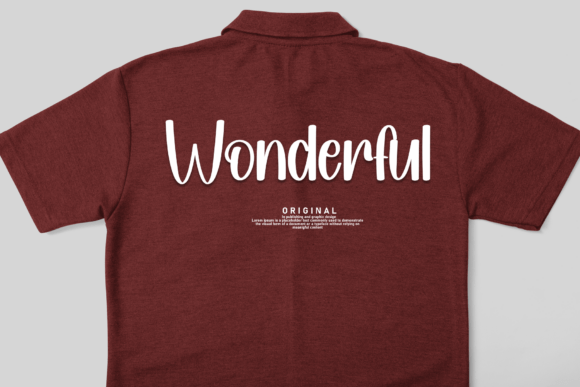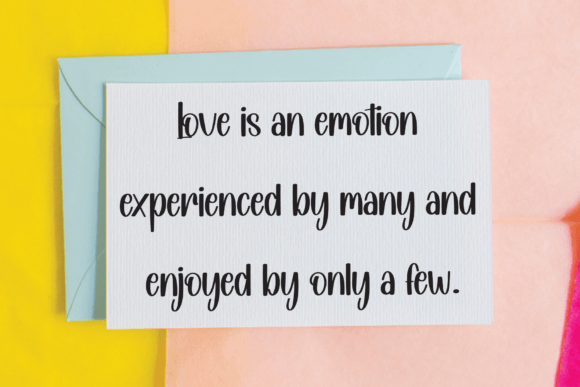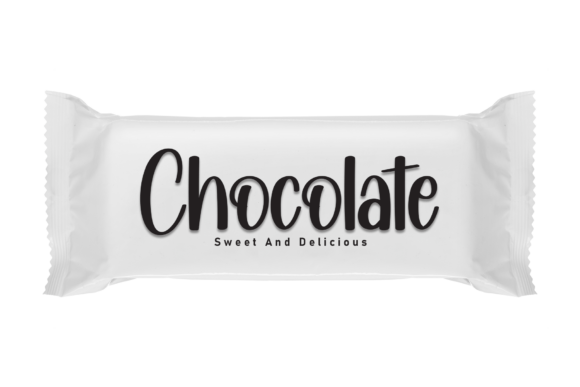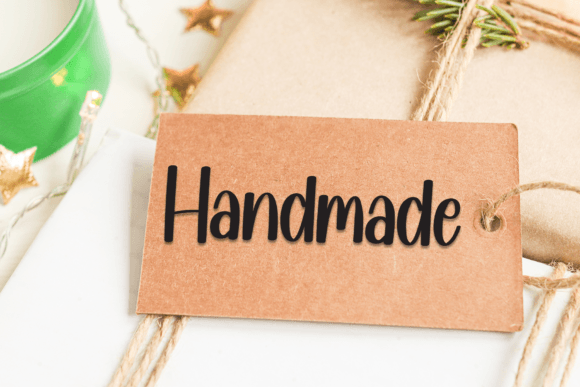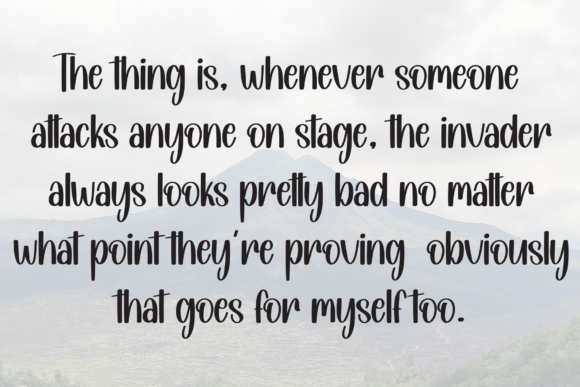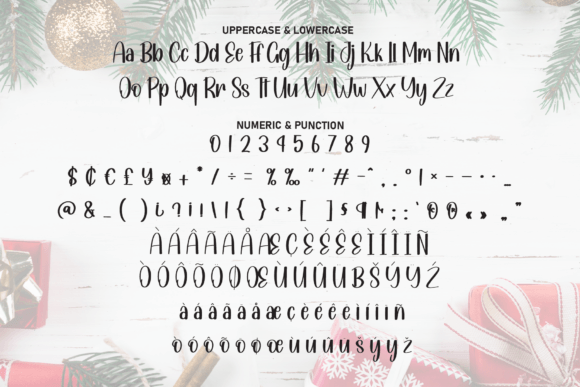
Introduction to Saturday Christmas Font
As designers, we’ve all been there – staring at a blank canvas, trying to bring our ideas to life. The spark of creativity hits, and suddenly, visions of colorful patterns and whimsical typography dance in our minds. For many, this moment is the catalyst for creating something truly special. And that’s exactly what the Saturday Christmas Font is all about – capturing the essence of joy and playfulness in every design.
With its hand-drawn charm and transparent background, this high-quality font is a design resource like no other. Whether you’re working on a creative project that requires a touch of whimsy or simply want to add a personal touch to your designs, the Saturday Christmas Font is the perfect choice. Its free download has made it a favorite among designers, who appreciate its versatility and ease of use.
Key Features of Saturday Christmas Font
- Unique and festive design for creative projects, perfect for a Saturday Christmas celebration.
- High-quality font with transparent background, ideal for digital design and print materials.
- Font size: 2048 glyphs, covering a wide range of languages and characters.
- Perfect for use in holiday-themed designs, greeting cards, and other festive projects, adding a touch of creativity and joy.
Honest Review: Saturday Christmas Font
As a designer, I’m always on the lookout for high-quality design resources to elevate my creative projects. Recently, I had the chance to work with the Saturday Christmas Font, and I’m excited to share my honest review.
- The font is incredibly versatile, with a range of festive and fun styles that can be used for various design projects.
- The transparent background option allows for seamless integration with other design elements, giving designers more flexibility in their creative projects.
Overall, I’m impressed with the Saturday Christmas Font. Its high-quality design, creative styles, and transparent background make it a valuable resource for designers working on festive projects. Whether you’re creating a holiday-themed website, social media graphics, or print materials, this font is sure to add a touch of holiday cheer to your designs.
The Saturday Christmas Font is ideal for holiday-themed projects, including greeting cards, invitations, and social media graphics. You can also use it for branding and marketing materials, such as logos and brochures.